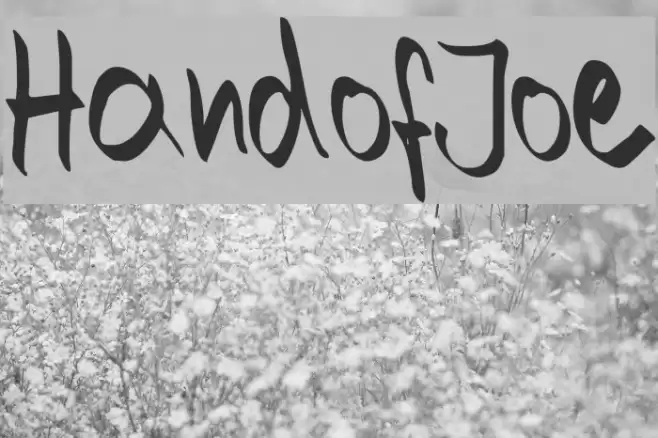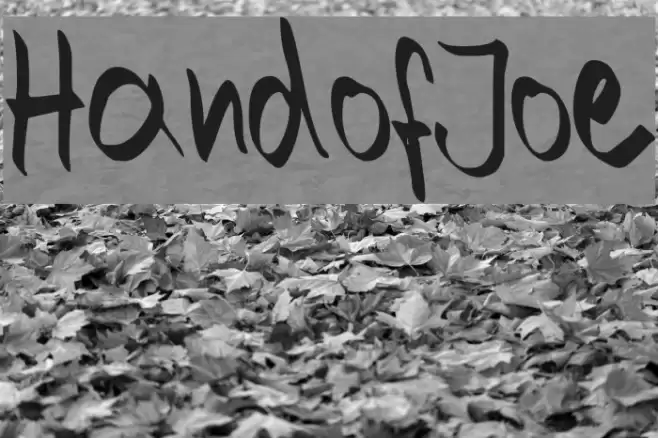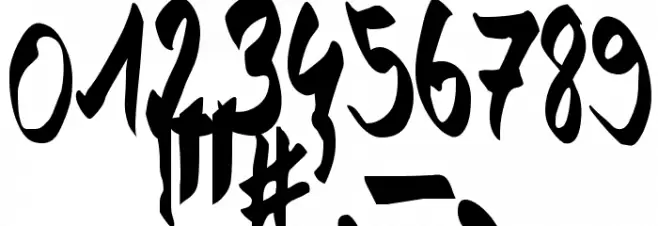
Hand of Joe Font
Hand of Joe Description
This font exudes a playful and artistic vibe, characterized by its hand-drawn appearance. The letters are irregular and dynamic, with varying stroke thickness that gives it a lively and spontaneous feel. The uppercase letters are bold and slightly angular, while the lowercase letters maintain a consistent flow with a more rounded form. Numbers and special characters follow the same energetic style, making them stand out. The overall look is casual and informal, perfect for projects that require a personal touch or a creative flair.
A playful, hand-drawn font with dynamic strokes and an artistic feel from Uncategorized fonts.
- Proposed Projects: Ideal for creative projects such as greeting cards, posters, children's books, and artistic branding.